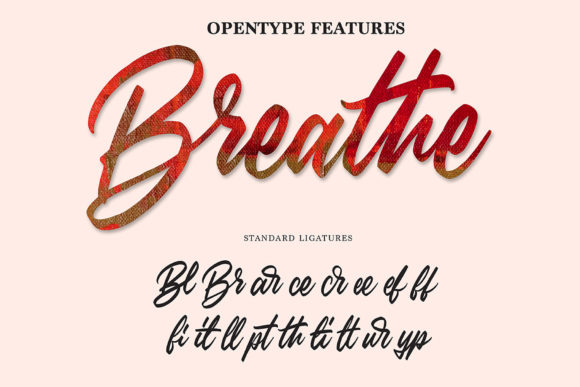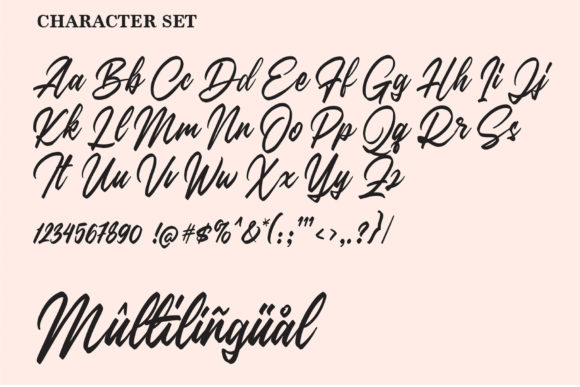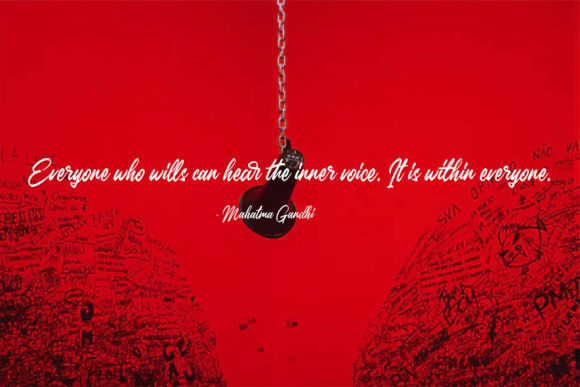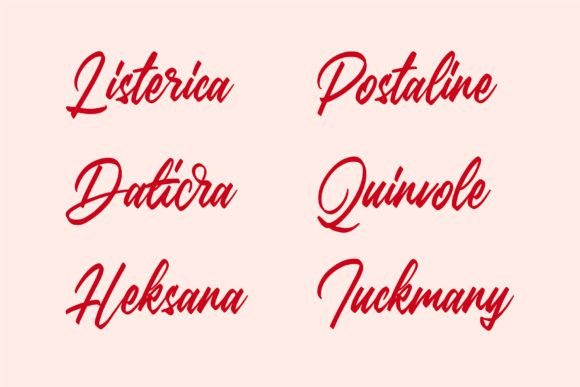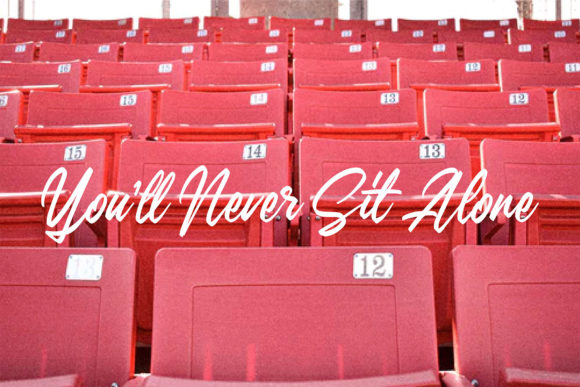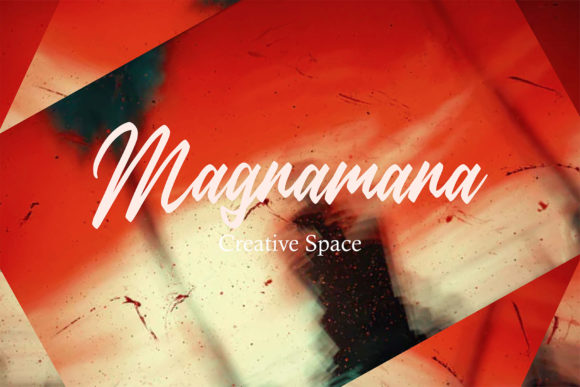
Introducing Blurin Font: The Ultimate Choice for Elegant Designs
Are you tired of using the same old fonts for your design projects? Look no further than Blurin Font, a stunning handwritten font that’s sure to elevate your work to new heights. With its perfect blend of classic calligraphic influences and modern flair, Blurin is the ideal choice for designers and crafters looking to add a touch of elegance to their creations.
The Story Behind Blurin Font
Blurin Font is a gorgeous handwritten font, carefully crafted to become a top choice for designers and crafters alike. Its creators aimed to design a font that would maintain its classy calligraphic influences while feeling contemporary and fresh. The result is a font that’s both timeless and trendy, perfect for a wide range of design projects.
What Makes Blurin Font So Special?
So, what sets Blurin Font apart from other fonts on the market? Here are just a few of its standout features:
- Handwritten elegance: Blurin Font boasts a beautiful, handwritten aesthetic that’s perfect for adding a personal touch to your designs.
- Classy calligraphic influences: The font’s calligraphic roots give it a sophisticated, high-end feel that’s ideal for luxury brands and designs.
- Contemporary and fresh: Despite its classic influences, Blurin Font feels modern and fresh, making it perfect for designers who want to stay on-trend.
- Versatile: Whether you’re working on a wedding invitation, a brand identity, or a packaging design, Blurin Font is versatile enough to adapt to any project.
Why Designers and Crafters Love Blurin Font
Designers and crafters alike are falling in love with Blurin Font, and it’s easy to see why. Here are just a few reasons why this font has become a favorite among creative professionals:
- Easy to read: Despite its elegant, cursive aesthetic, Blurin Font is surprisingly easy to read, making it perfect for body text and headlines.
- Highly legible: The font’s careful kerning and attention to detail ensure that it’s highly legible, even at smaller sizes.
- Customizable: With its range of weights and styles, Blurin Font can be customized to suit any design project or brand identity.
How to Use Blurin Font in Your Designs
Ready to fall in love with Blurin Font and bring your projects to the highest levels? Here are a few tips for incorporating this gorgeous font into your designs:
- Pair it with a sans-serif font: For a classic, elegant look, pair Blurin Font with a clean sans-serif font like Arial or Helvetica.
- Use it for headlines and titles: Blurin Font’s elegant aesthetic makes it perfect for headlines and titles, where it can add a touch of sophistication and glamour.
- Experiment with different weights and styles: With its range of weights and styles, Blurin Font can be customized to suit any design project or brand identity.
| Font Name | Blurin Font |
| Author | Colative |
In conclusion, Blurin Font is a stunning handwritten font that’s sure to become a top choice for designers and crafters alike. With its perfect blend of classic calligraphic influences and modern flair, Blurin is the ideal choice for anyone looking to add a touch of elegance to their designs. So why wait? Fall in love with Blurin Font and bring your projects to the highest levels!